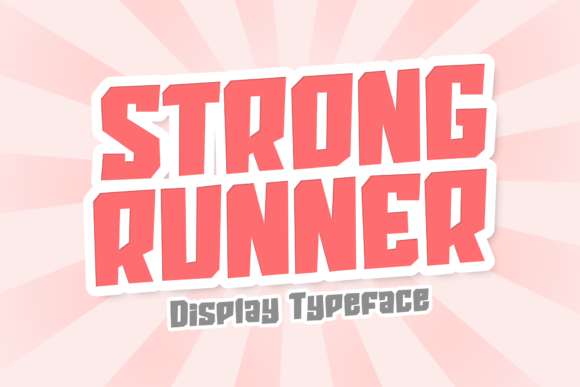
Welcome to the realm of Strong Runner, a display font that transforms your designs into captivating visual spectacles. Its chunky, playful letters exude an irresistible charm, perfectly suited for injecting personality into game designs, animation, logos, product packaging, posters, and sports-themed creations. Strong Runner isn't just a font; it's an artistic gateway to a world of unlimited expression.
With its bold and distinct character, Strong Runner captures attention like a magnet, leaving an unforgettable impression on your audience. Its playful nature adds a touch of whimsy and lightheartedness, making it perfect for designs that aim to entertain and engage. Unleash your creativity and let Strong Runner guide you on a journey of visual storytelling.
The versatility of Strong Runner knows no bounds. Whether you're crafting eye-catching logos that demand remembrance or creating dynamic posters that ignite excitement, this font delivers with unwavering brilliance. Its unique shape adds a touch of intrigue, making your designs stand out from the crowd and leaving a lasting impact.
Step into the world of Strong Runner, where imagination reigns supreme, and let your creative spirit soar. Embrace the power of this font and watch as your designs transform into captivating masterpieces that resonate with your audience.